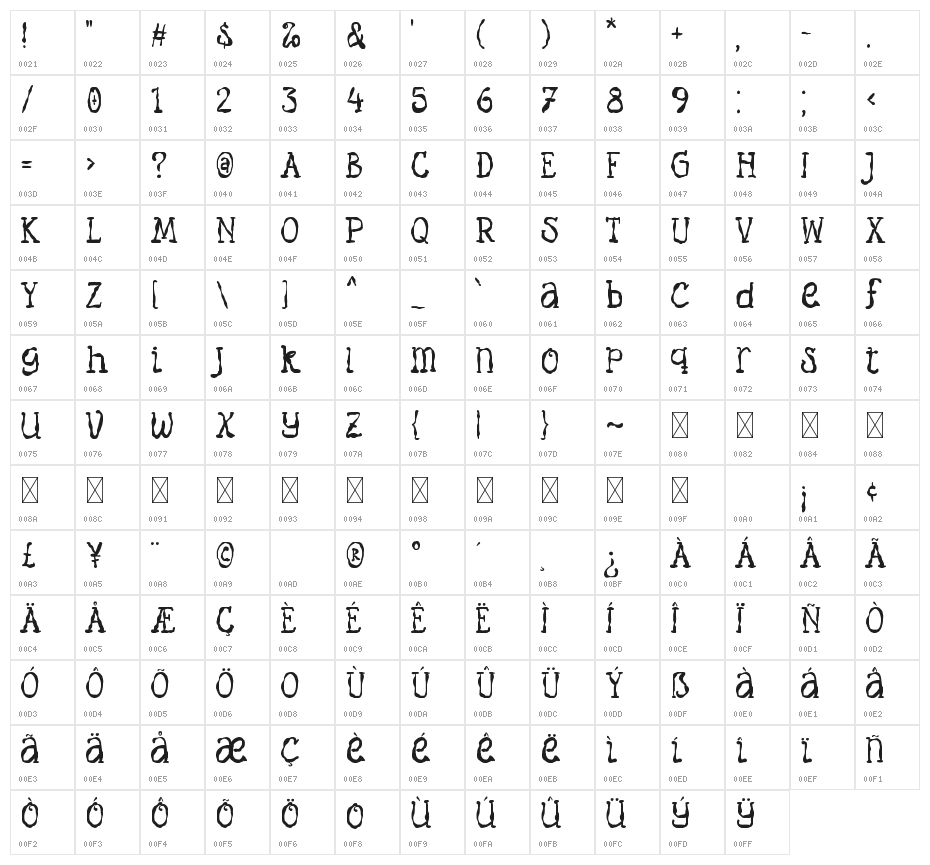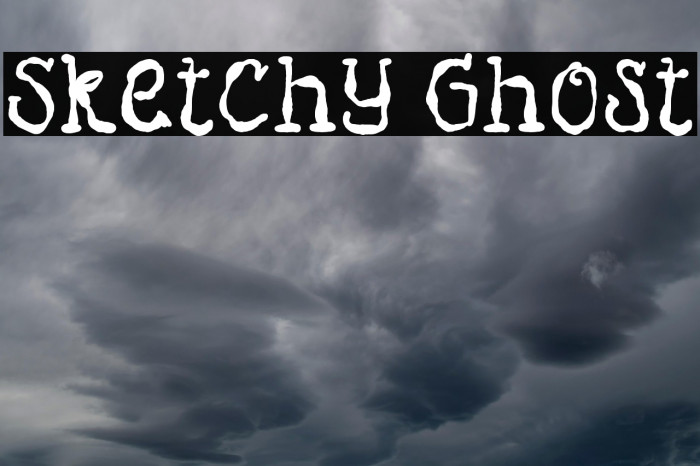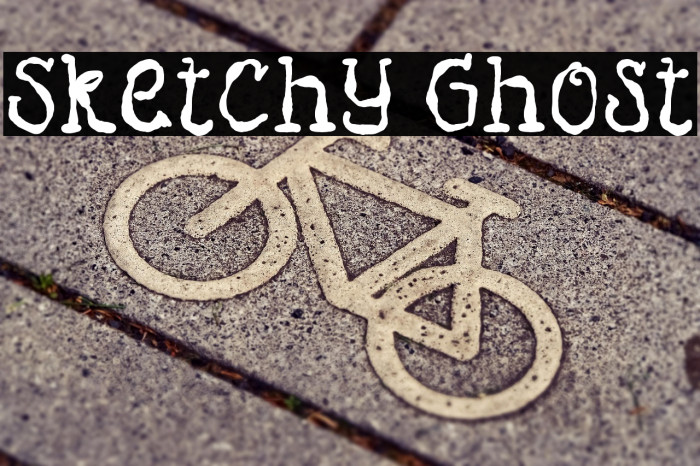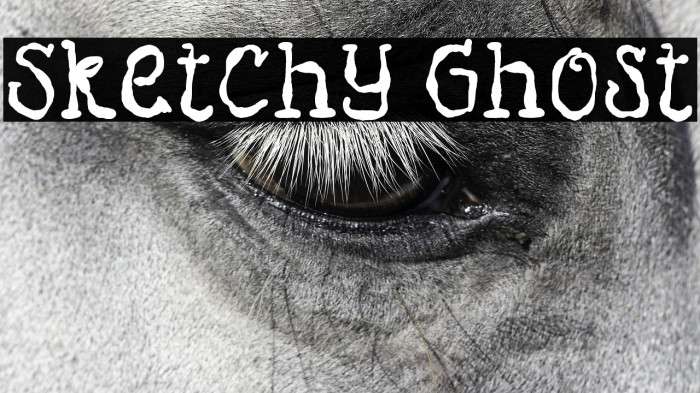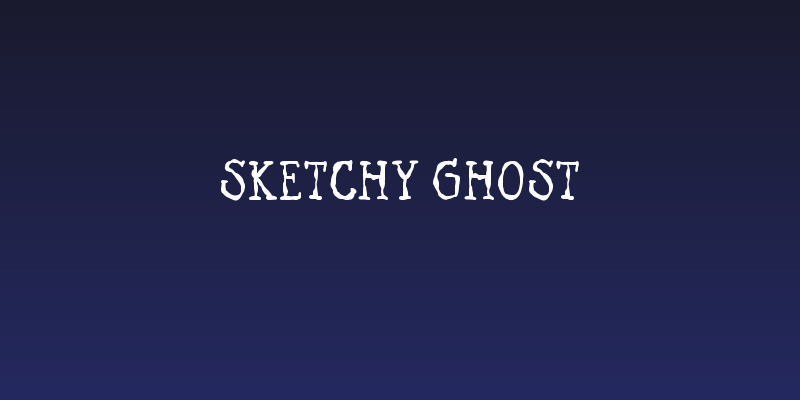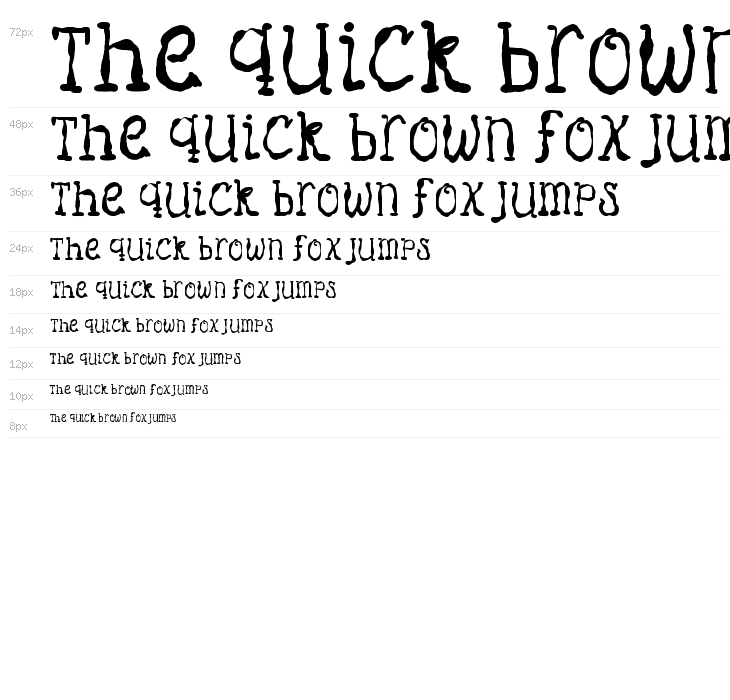
Sketchy Ghost Font
Sketchy Ghost Description
This font features a playful and slightly eerie design, with characters that appear hand-drawn and irregular, giving it a ghostly, sketch-like appearance. The strokes are uneven, with a rough texture that adds to its whimsical and spooky charm. Each letter has a unique, slightly distorted form, contributing to an overall quirky and artistic style. The font maintains a consistent baseline, but the varying heights and widths of the characters create a dynamic and lively effect. It is particularly suitable for creative projects that aim to evoke a sense of mystery or playfulness.
| Proposed Projects | Ideal for Halloween-themed designs, children's book covers, creative posters, and artistic branding projects. |